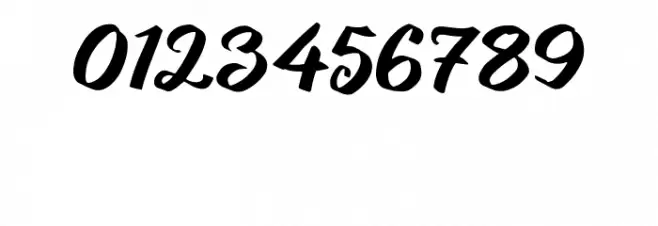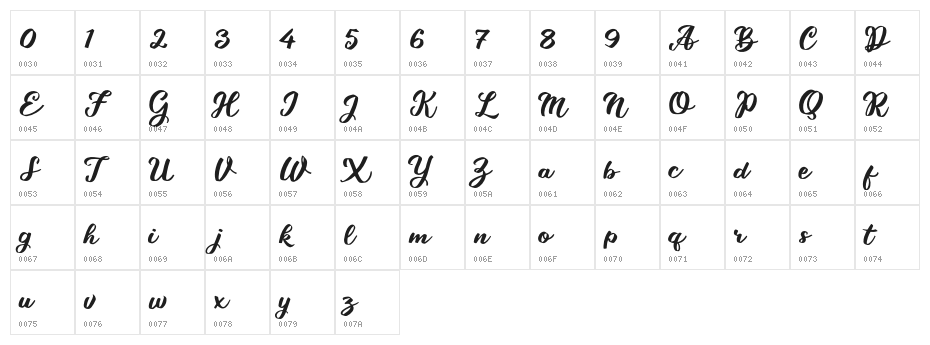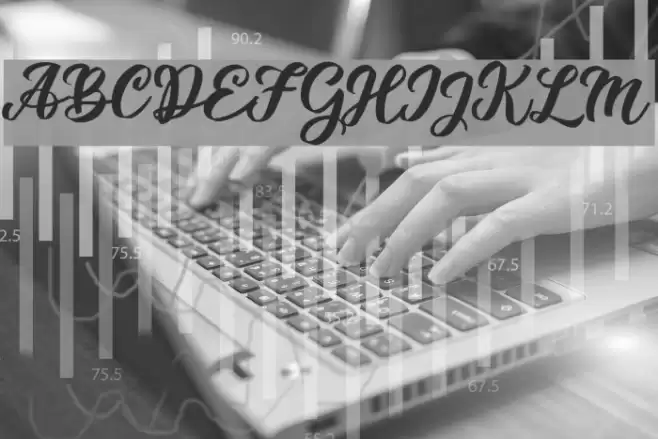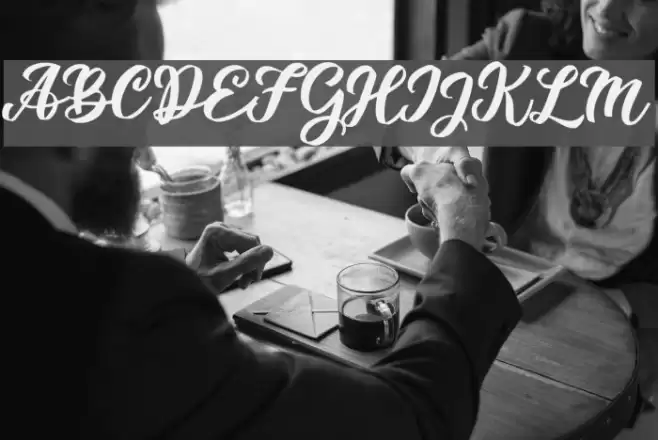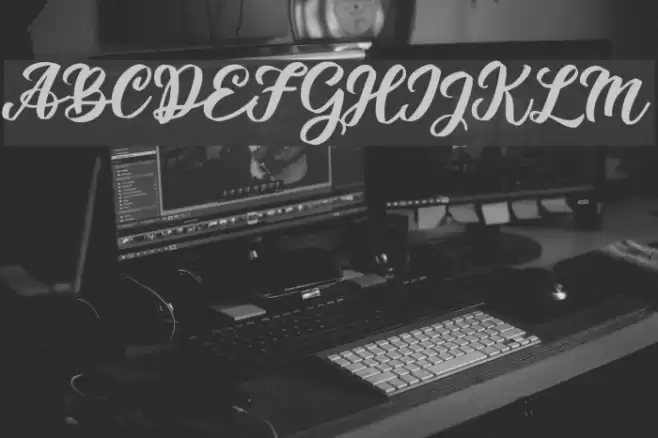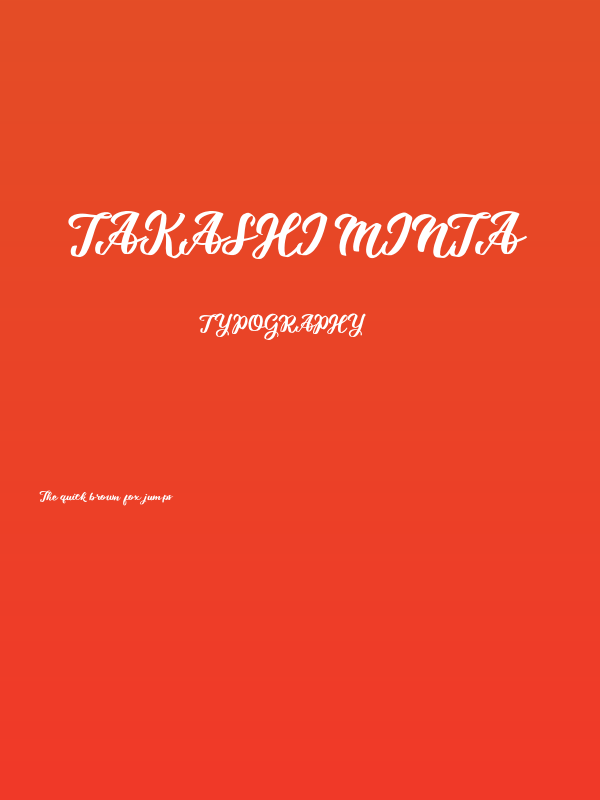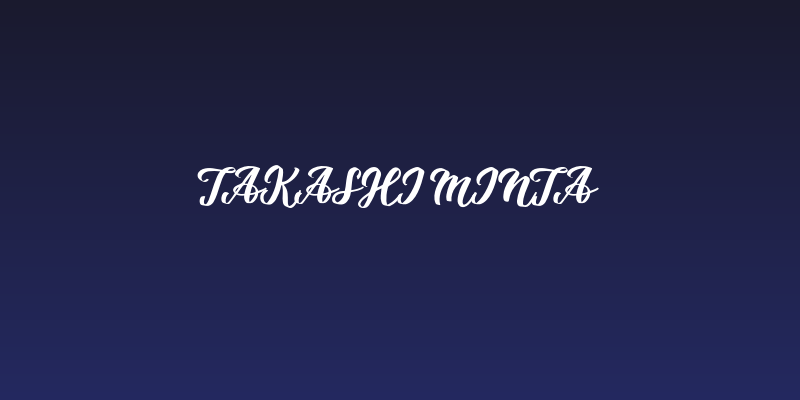
Takashi Minta Font
Takashi Minta Description
This font features a bold and flowing script style, characterized by its elegant and fluid strokes. The letters are interconnected, creating a sense of continuity and movement. The uppercase letters are slightly larger and more ornate, while the lowercase letters maintain a consistent rhythm and balance. The numbers are designed with the same flowing style, ensuring uniformity across all characters. This font exudes a sense of sophistication and charm, making it ideal for projects that require a touch of elegance.
| Proposed Projects | Ideal for wedding invitations, branding, logo design, and elegant stationery. |